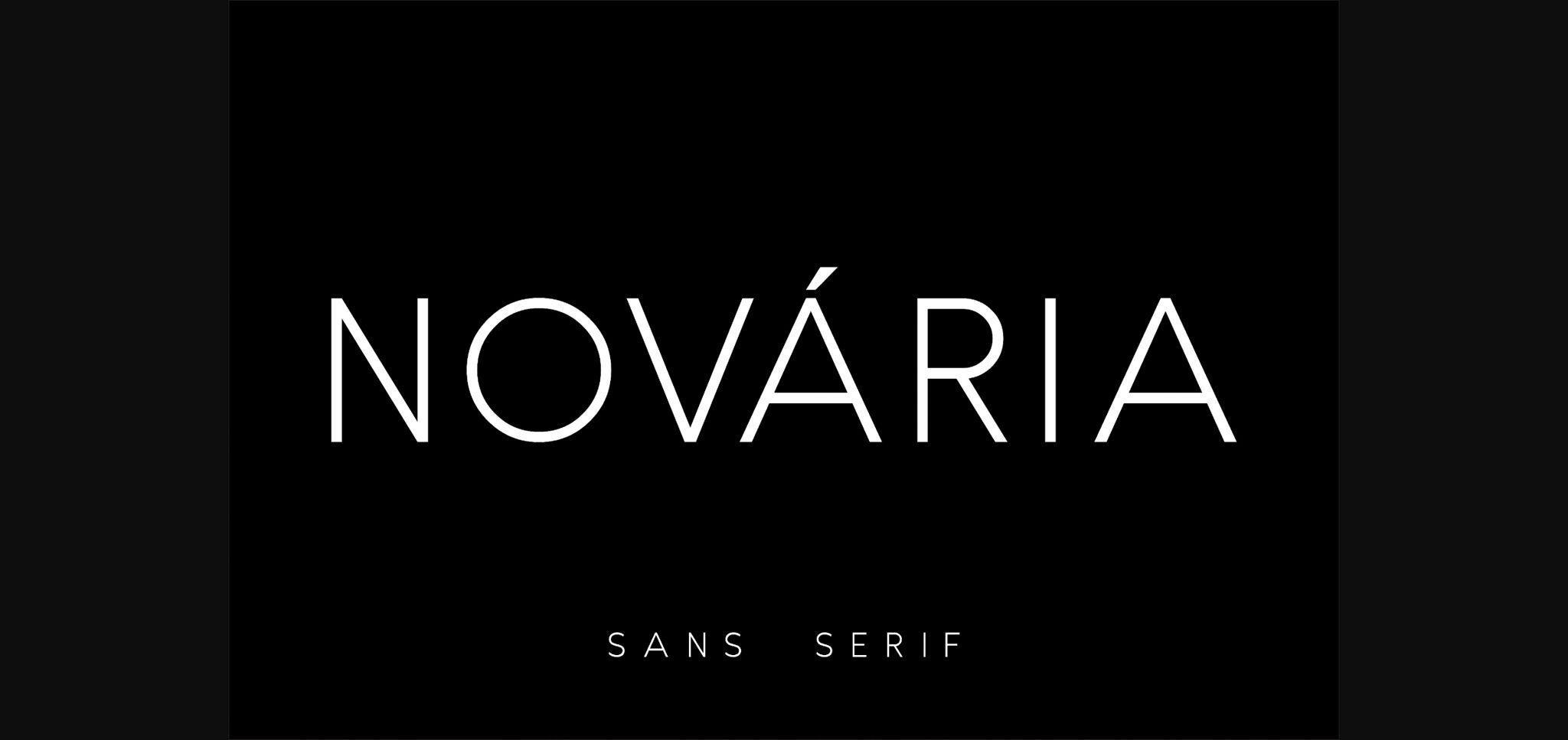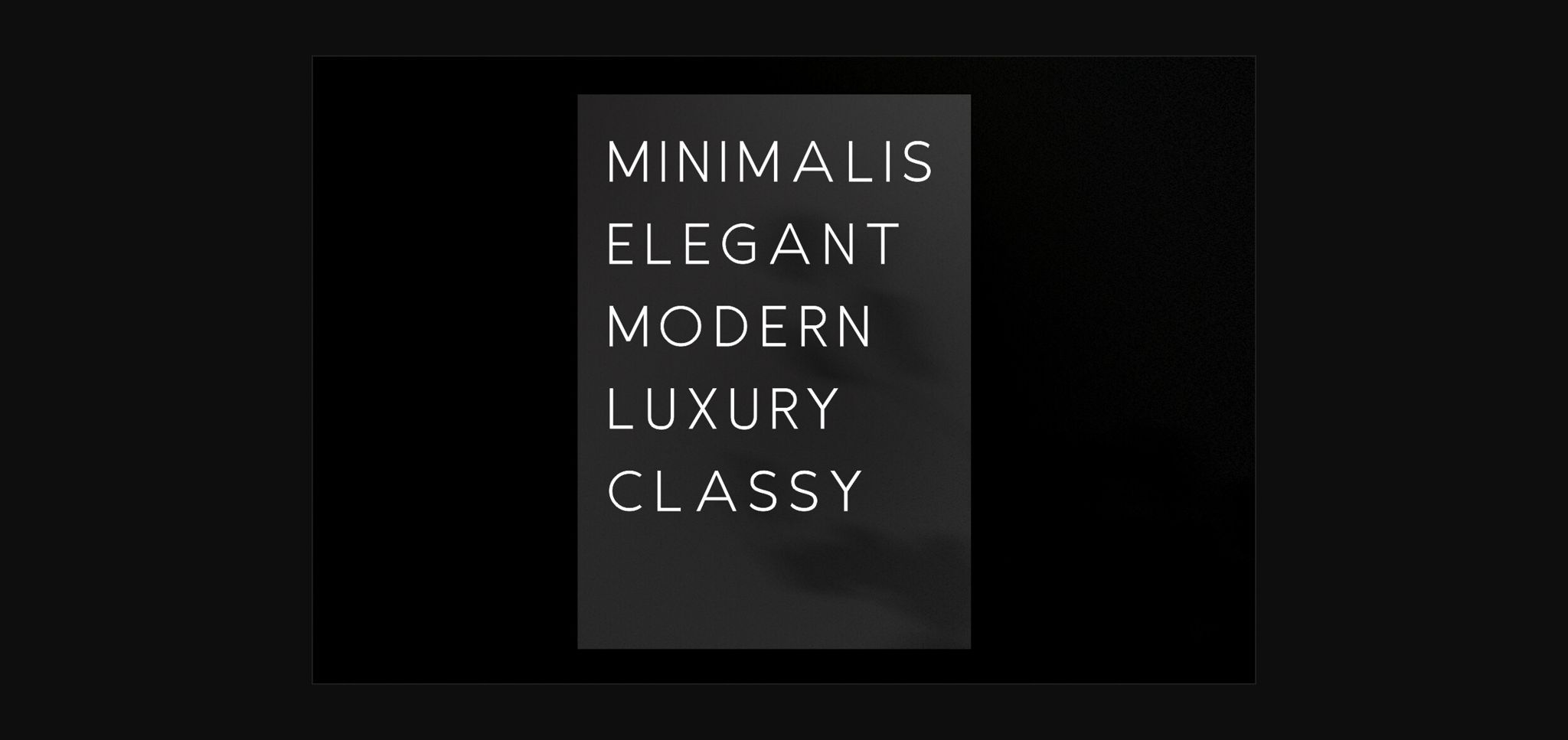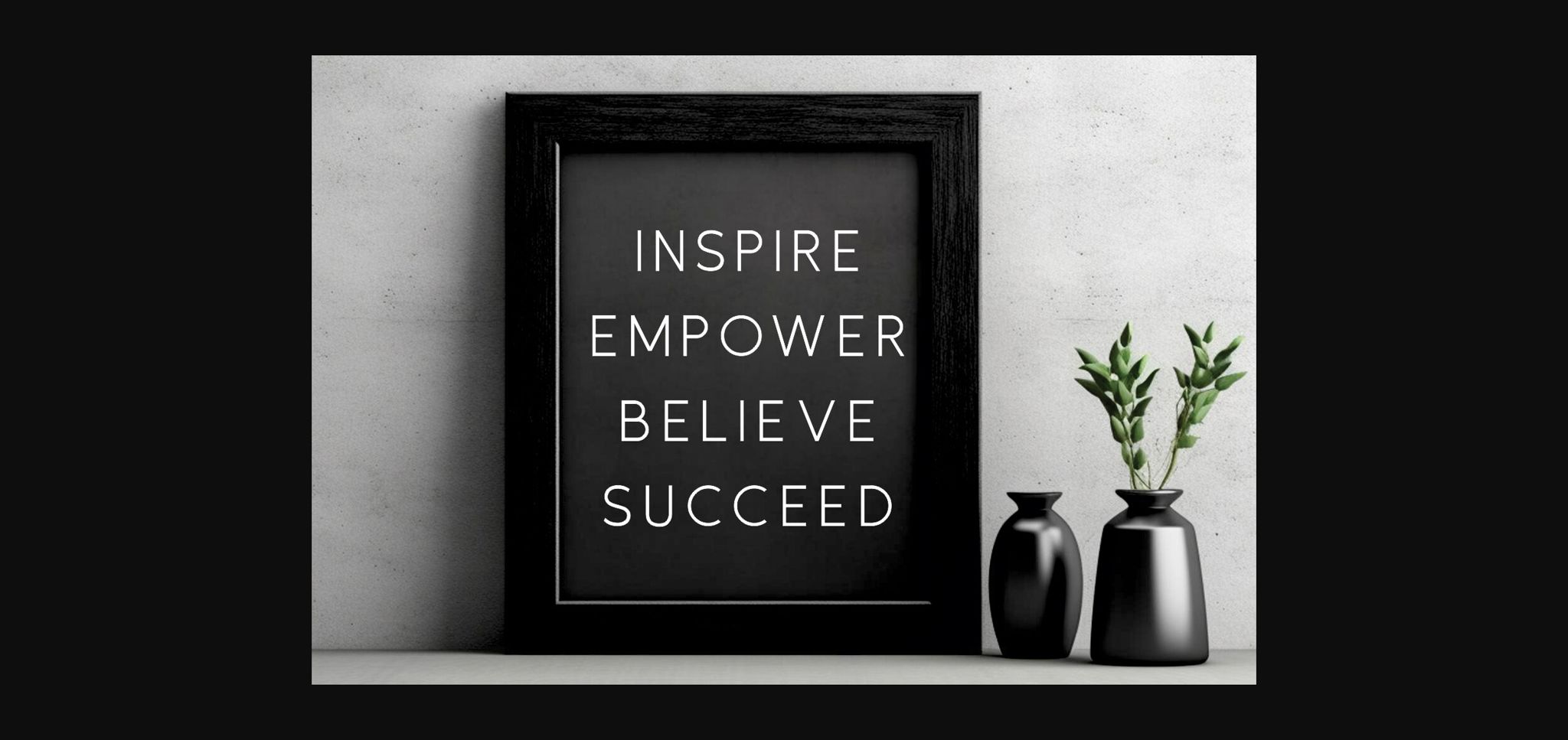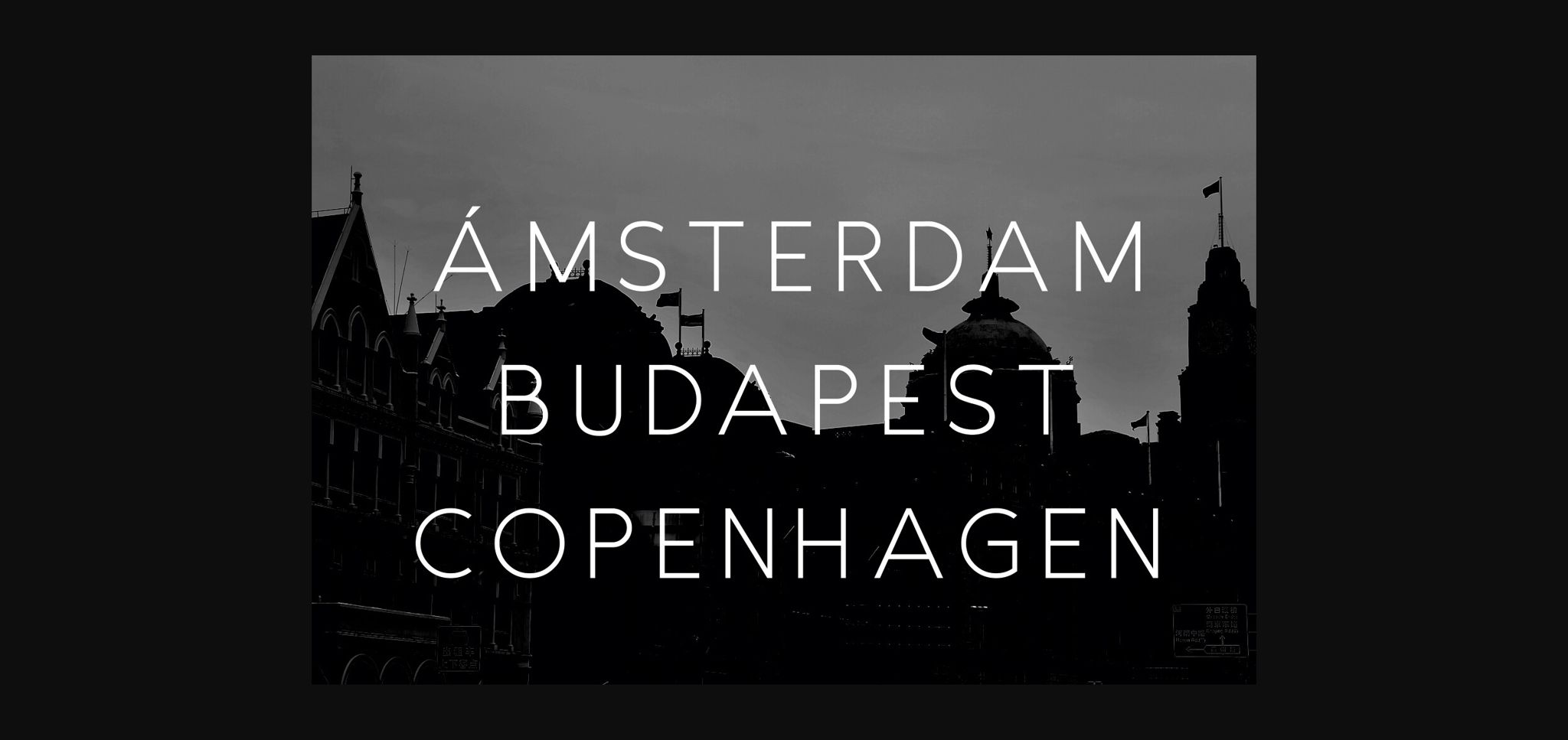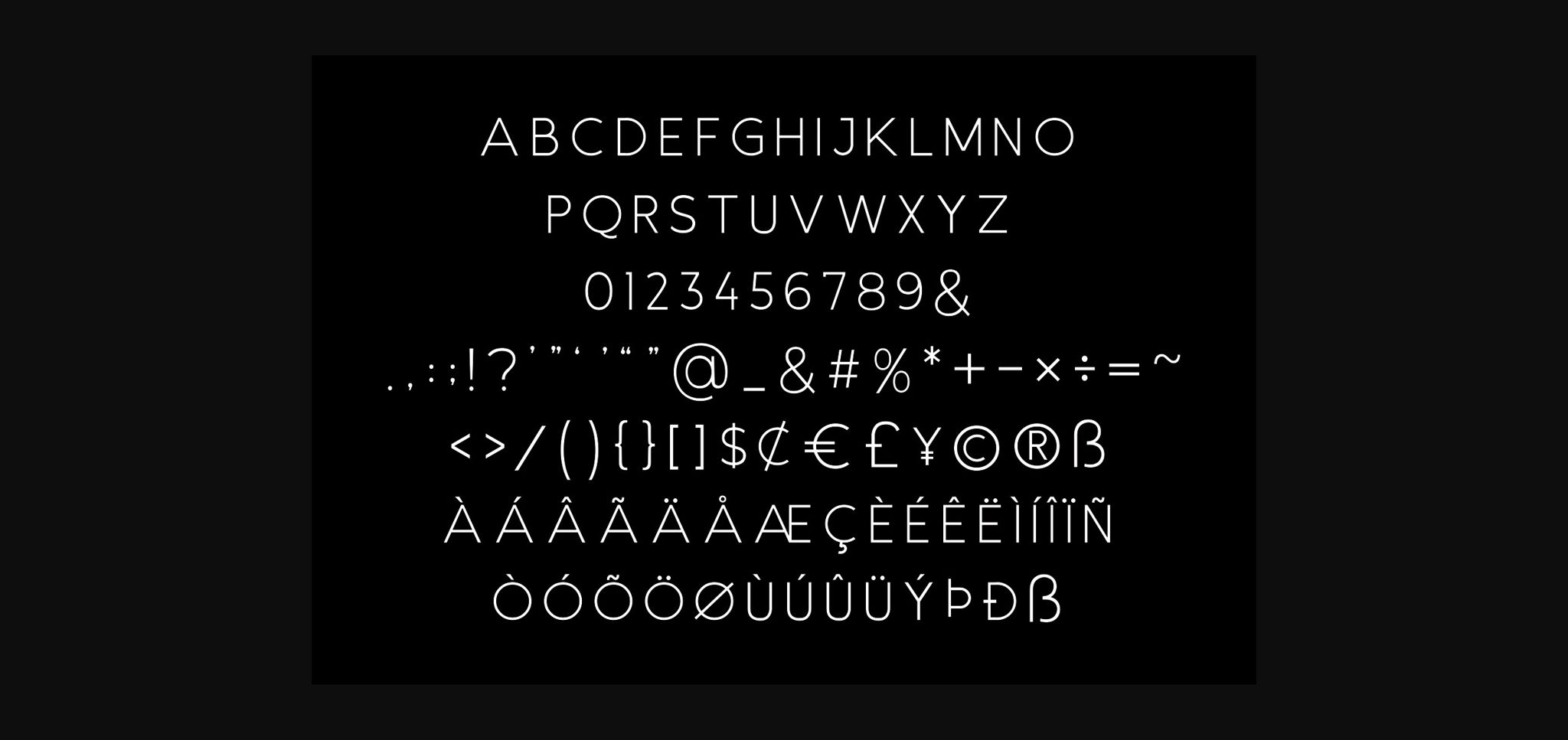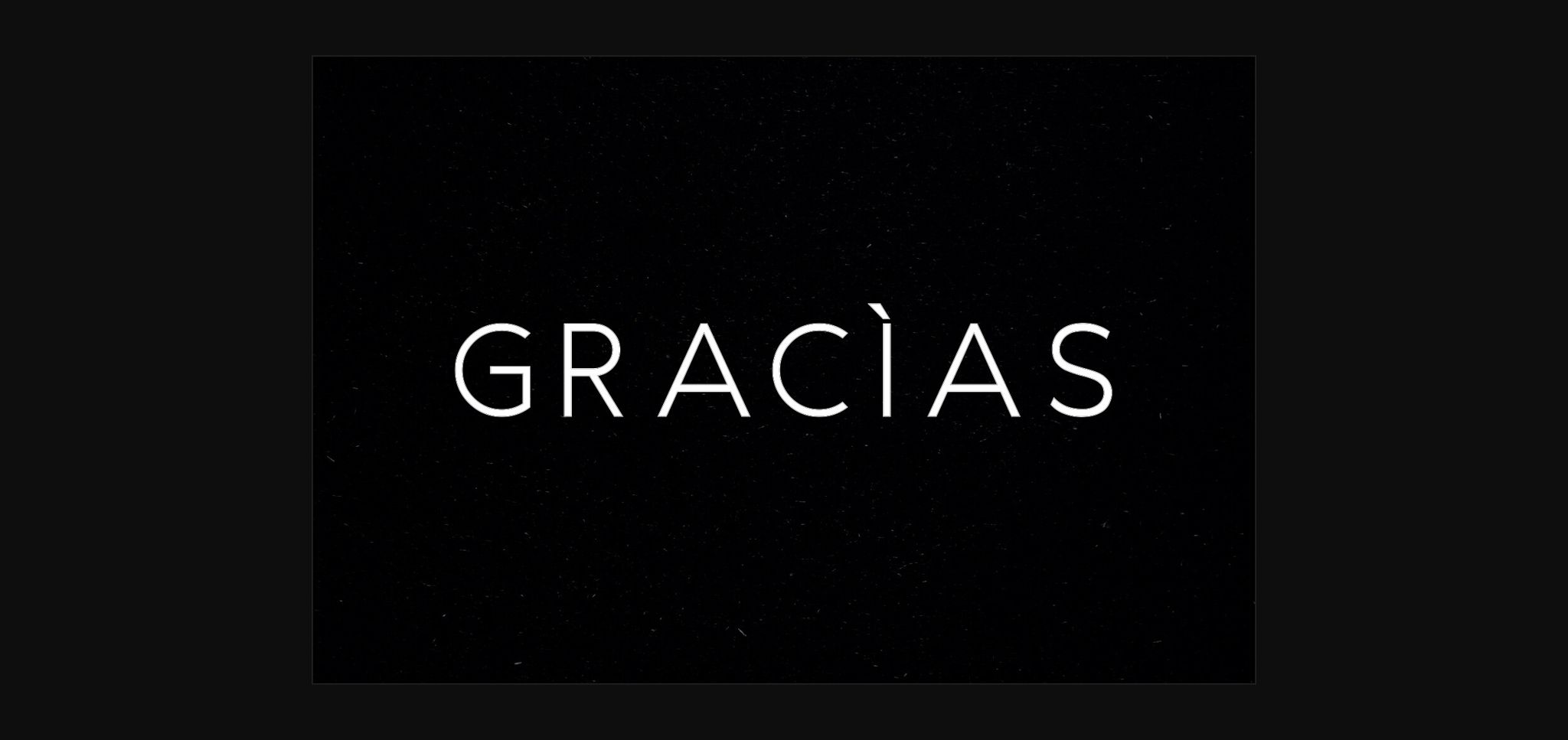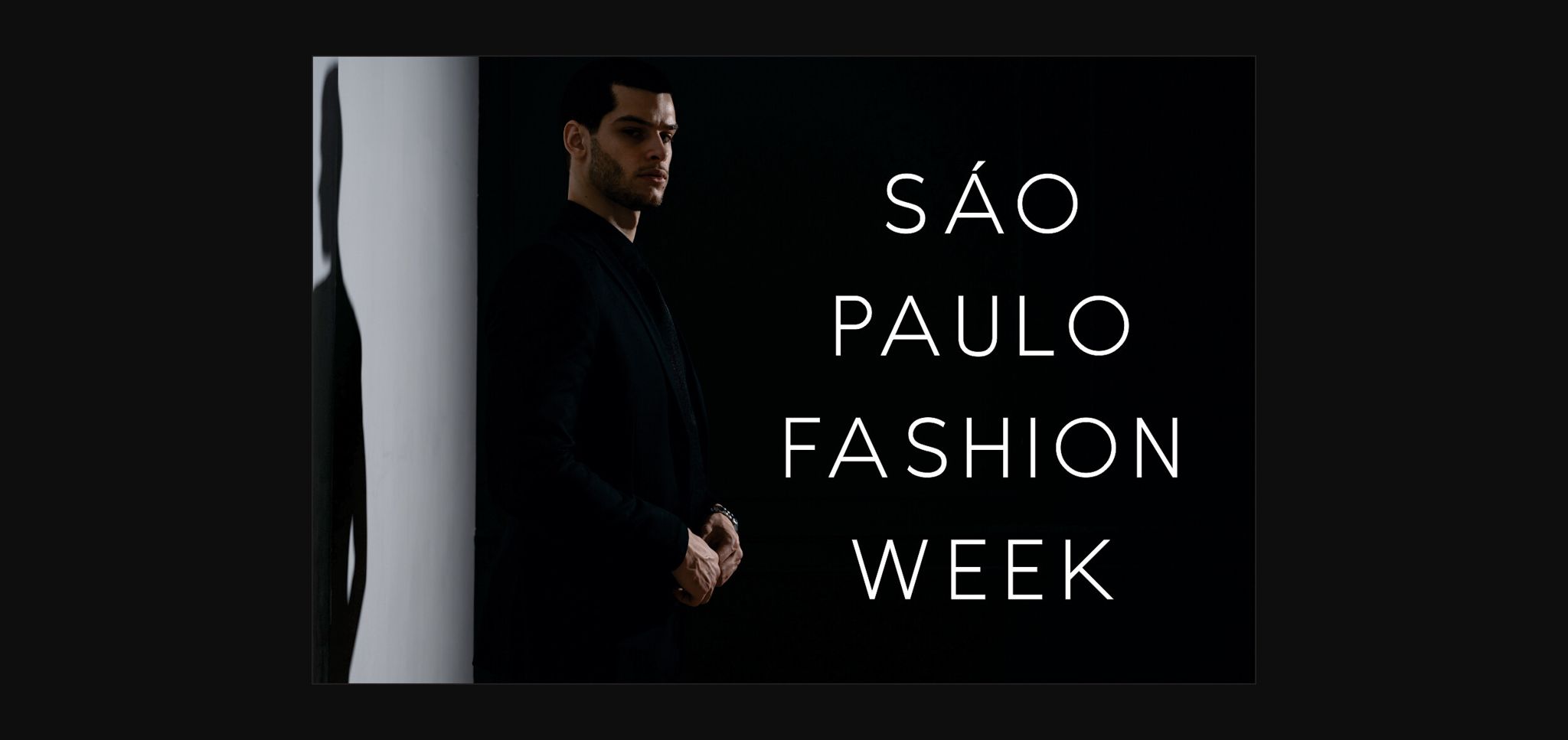
Novaria Font
About Novaria Font
Elevate your visual storytelling with Novaria font, a contemporary sans-serif specially crafted for high-impact applications in magazines, newspapers, banners, and more. This versatile font combines sleek sophistication with a touch of personality, making it the perfect choice for projects where clarity and style are paramount.
Novaria boasts a clean and minimalist design, characterized by crisp lines and well-defined letterforms. Its bold, commanding presence ensures that your message takes center stage, effortlessly drawing the reader’s eye. The font’s balanced proportions strike the ideal harmony between readability and aesthetics, making it equally suitable for headlines and body text.
Whether you’re designing a magazine cover that needs to stand out on the newsstand, crafting a newspaper layout that demands clarity and readability, or creating a bold and impactful banner for a special event, Novaria delivers the versatility you need. Its timeless appeal lends itself well to both modern and classic design aesthetics.
Choose Novaria for your next project and experience how this sans-serif display font can transform your designs into polished and captivating visual experiences, whether in the pages of a magazine, the columns of a newspaper, or the grandeur of a banner that commands attention.